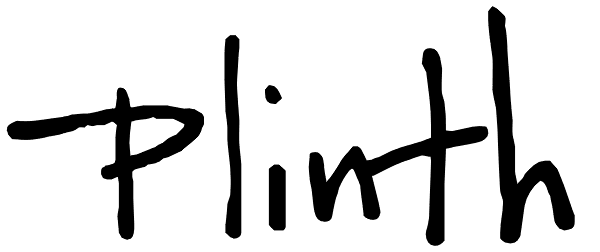
Plinth
Hand-drawn by an architectural renderer's daughter, Plinth is an craftsman-inspired font that leaves a strong and lasting impression. Both capital and lowercase letters have been designed for impacting display, but are also easily read in large...